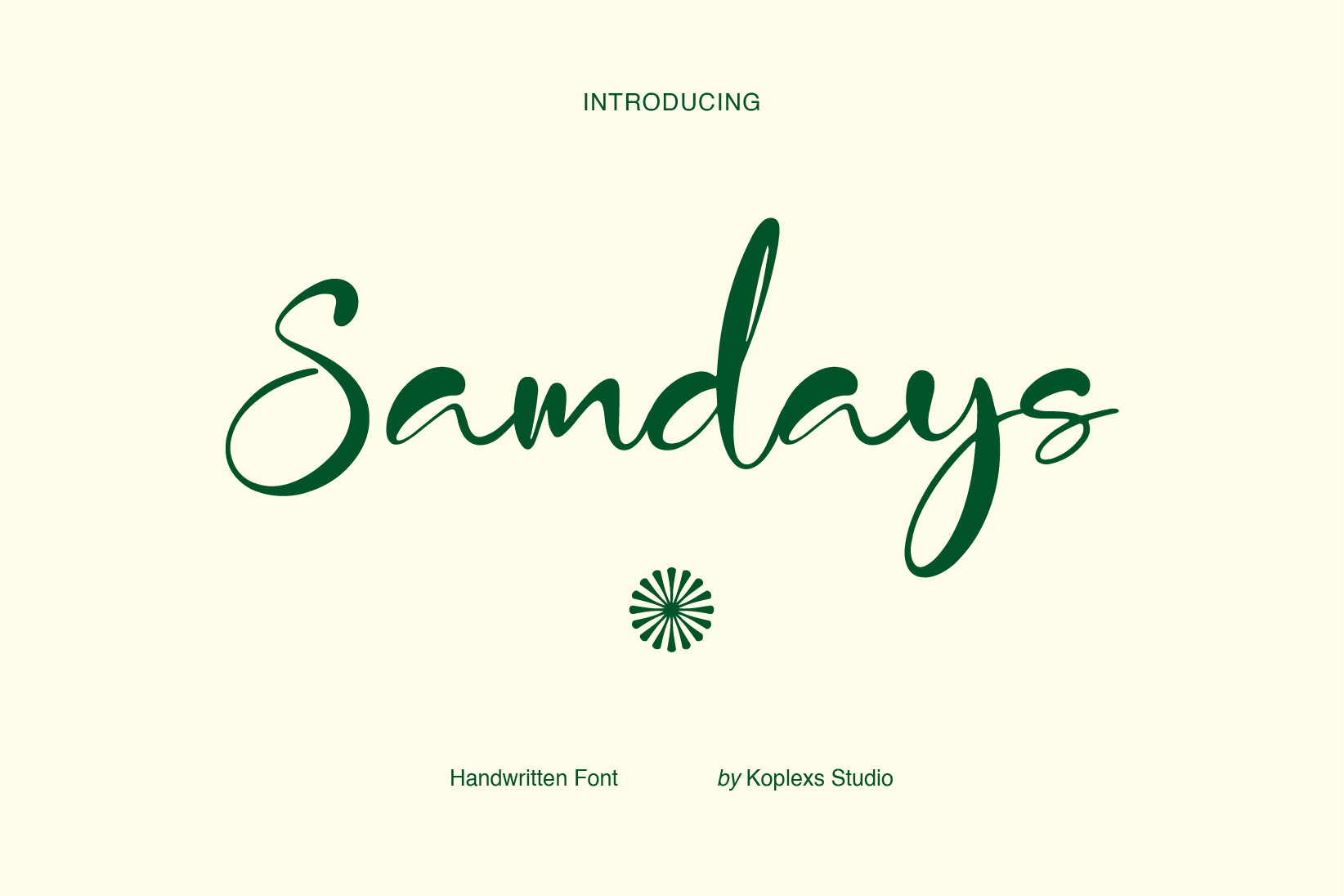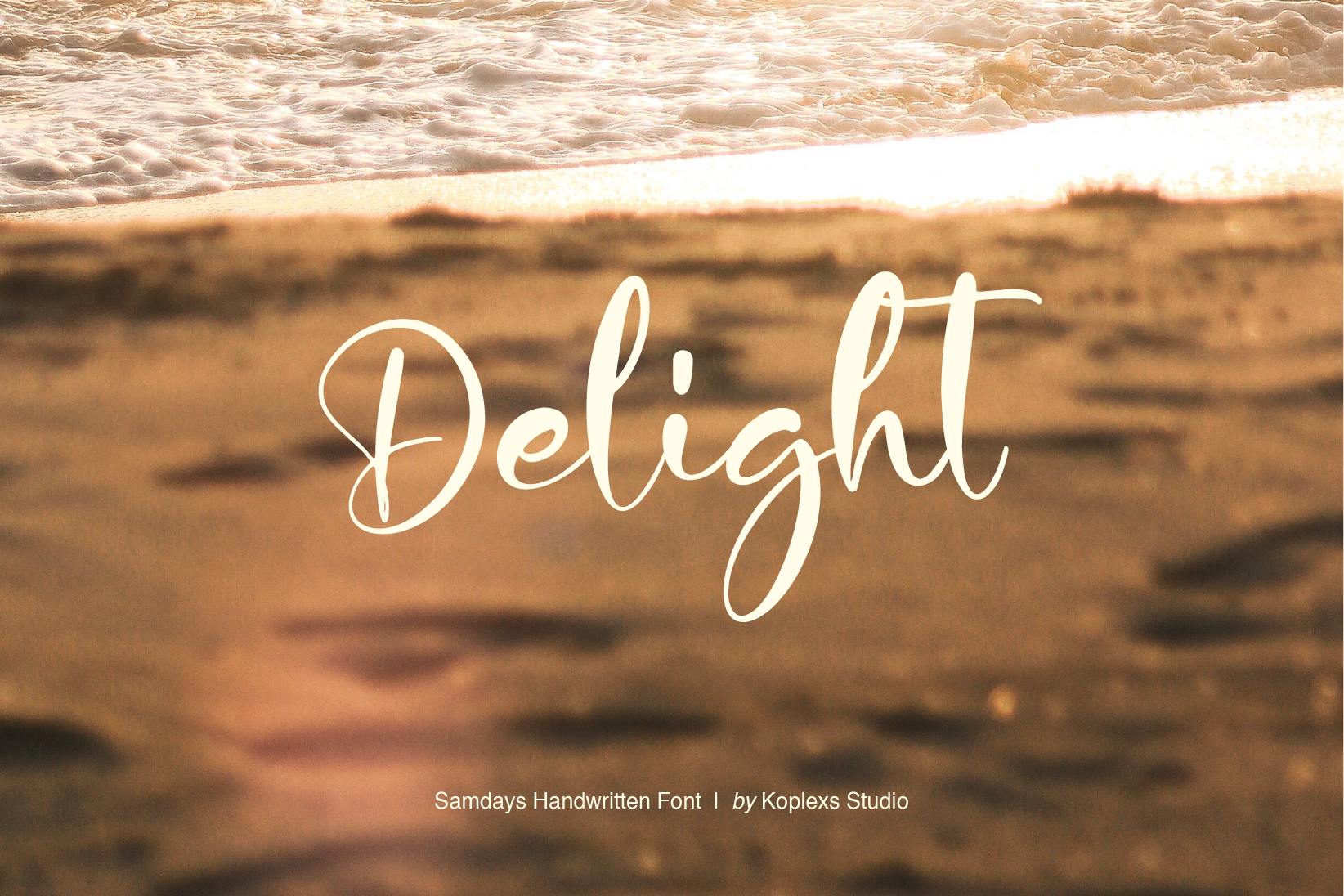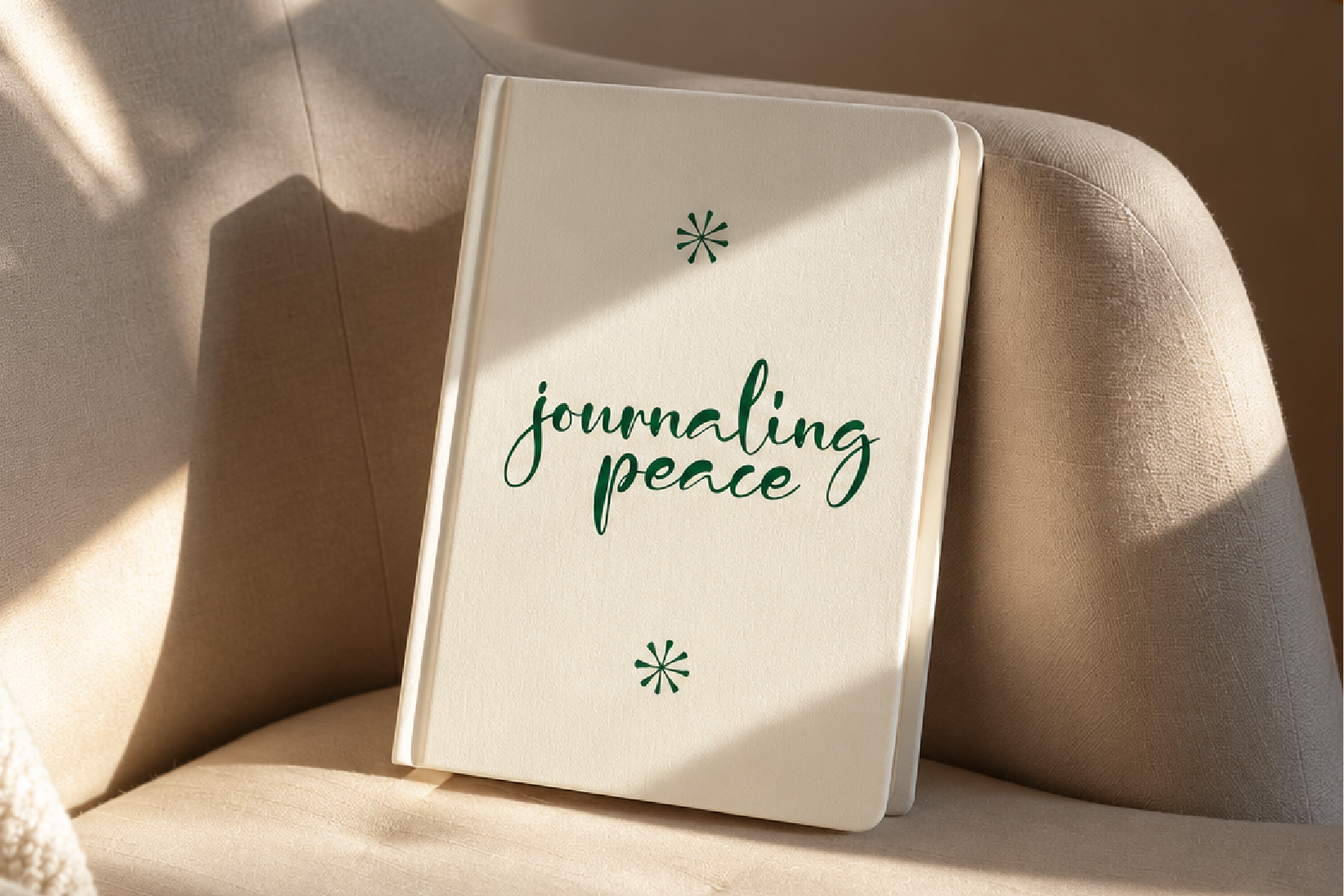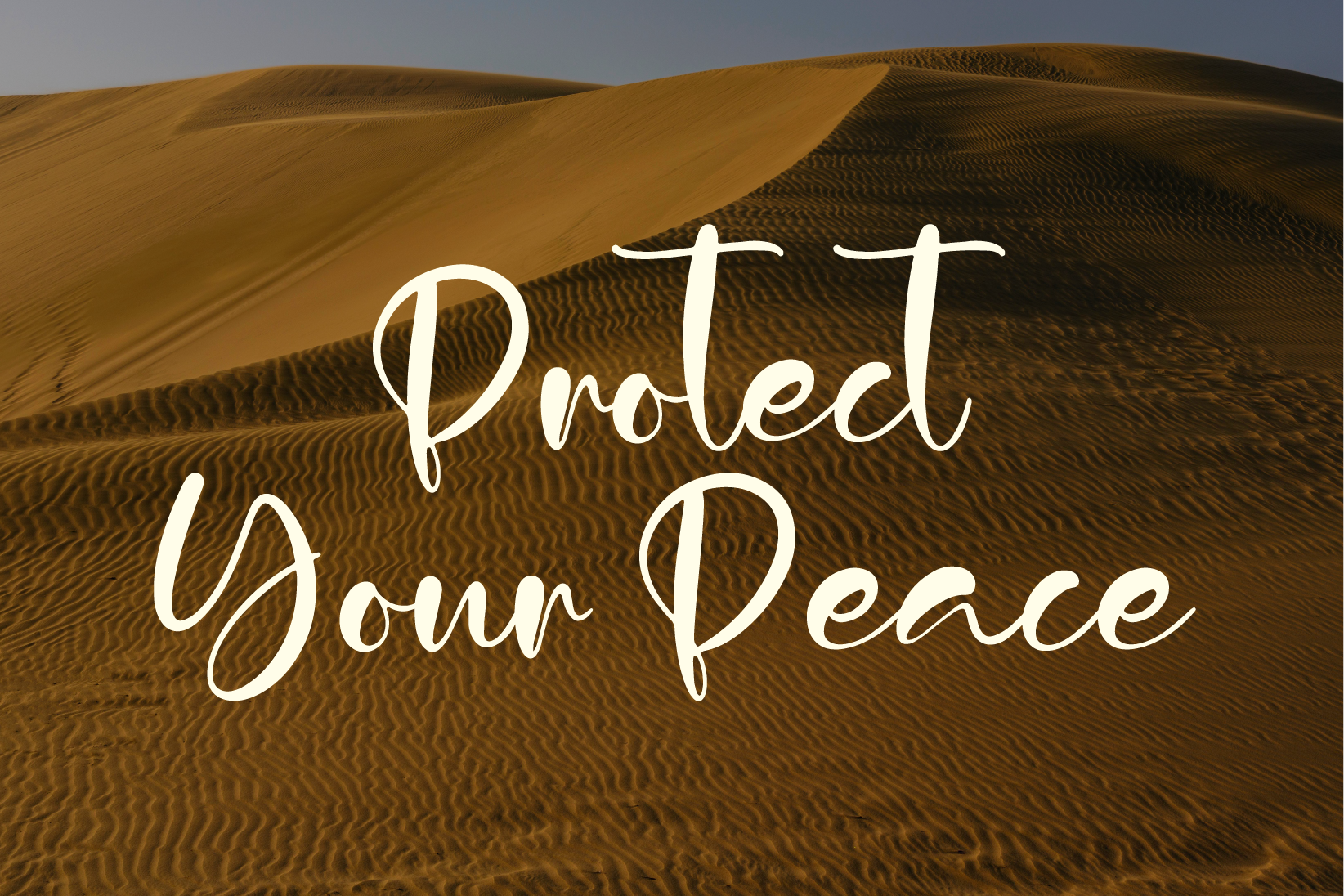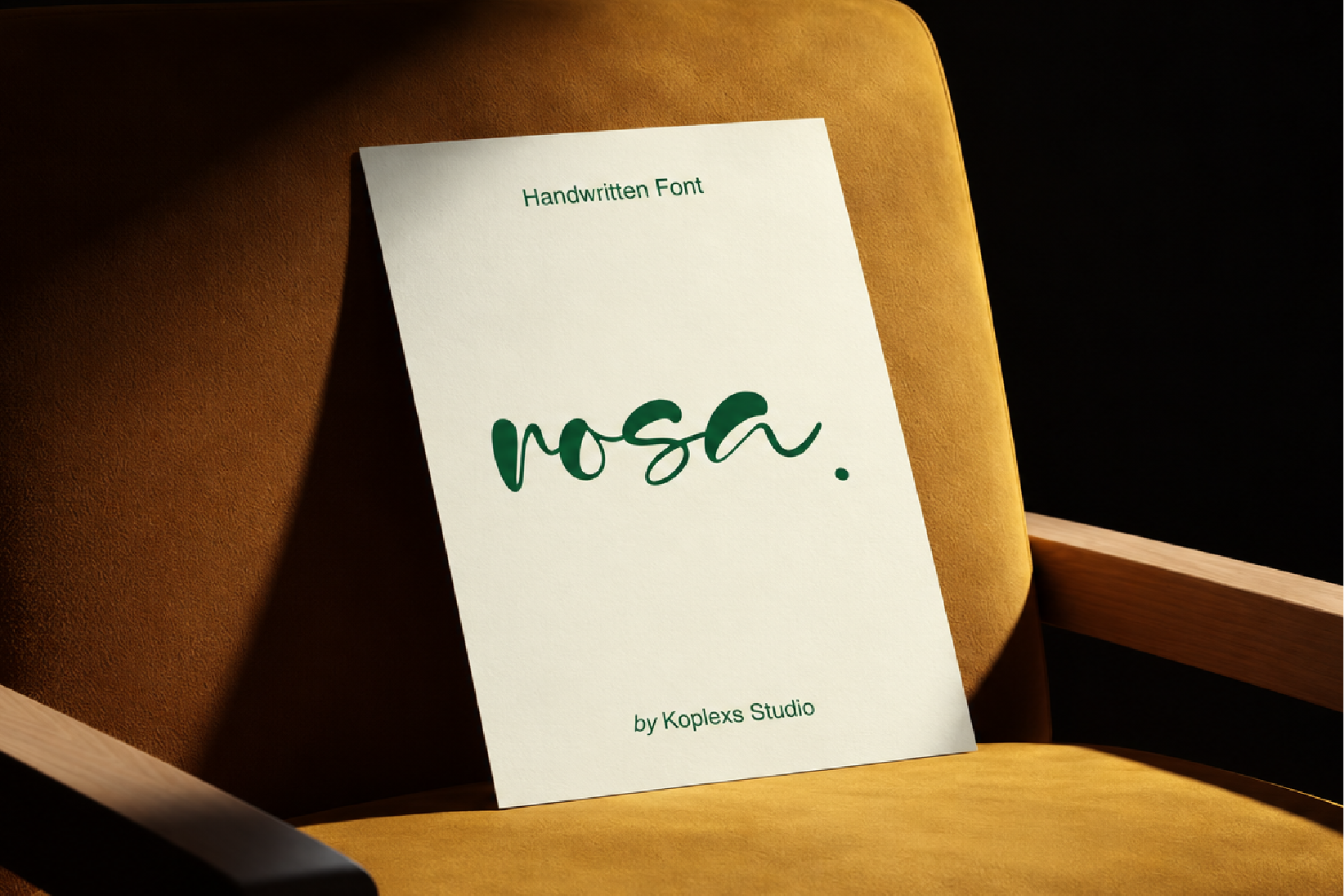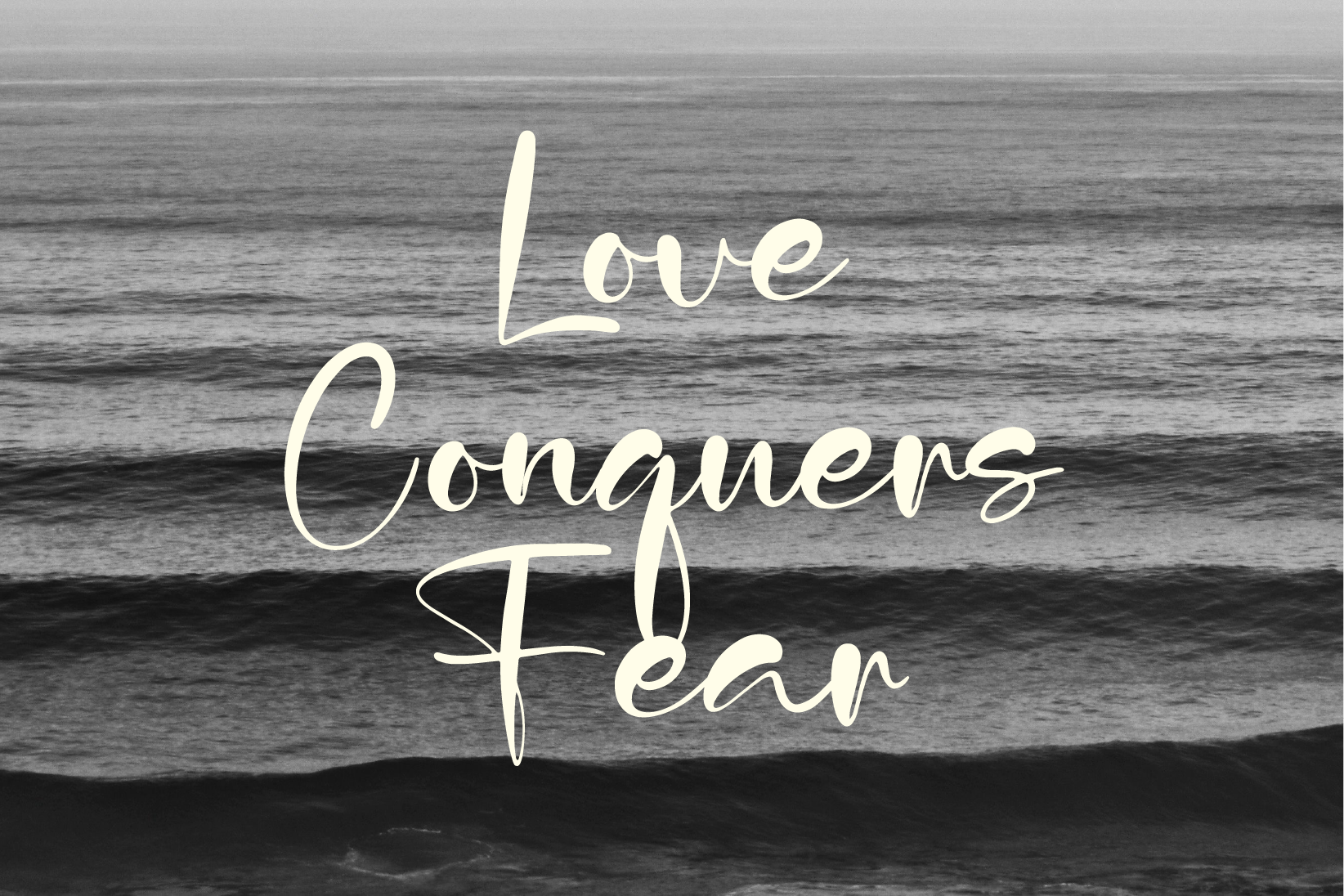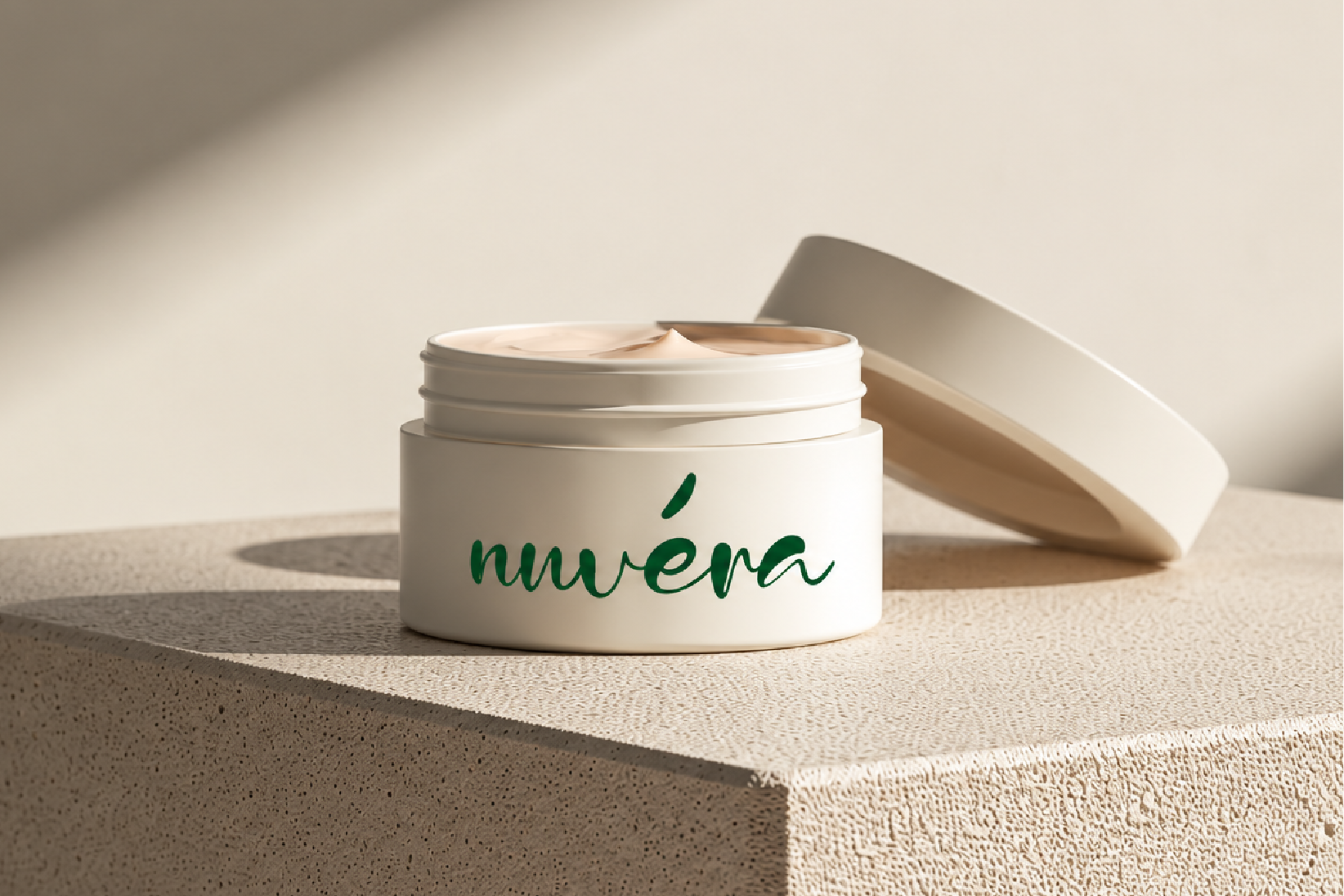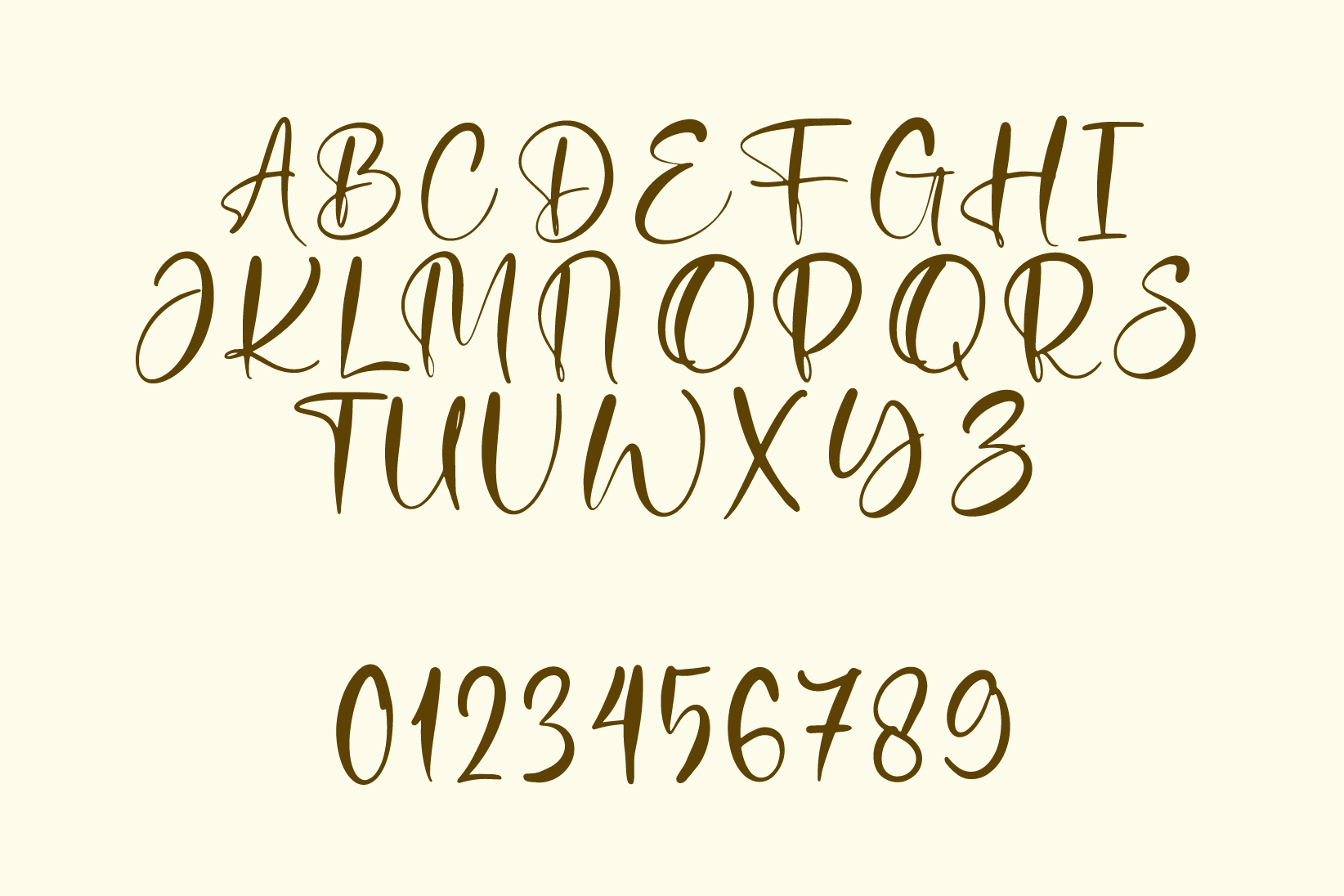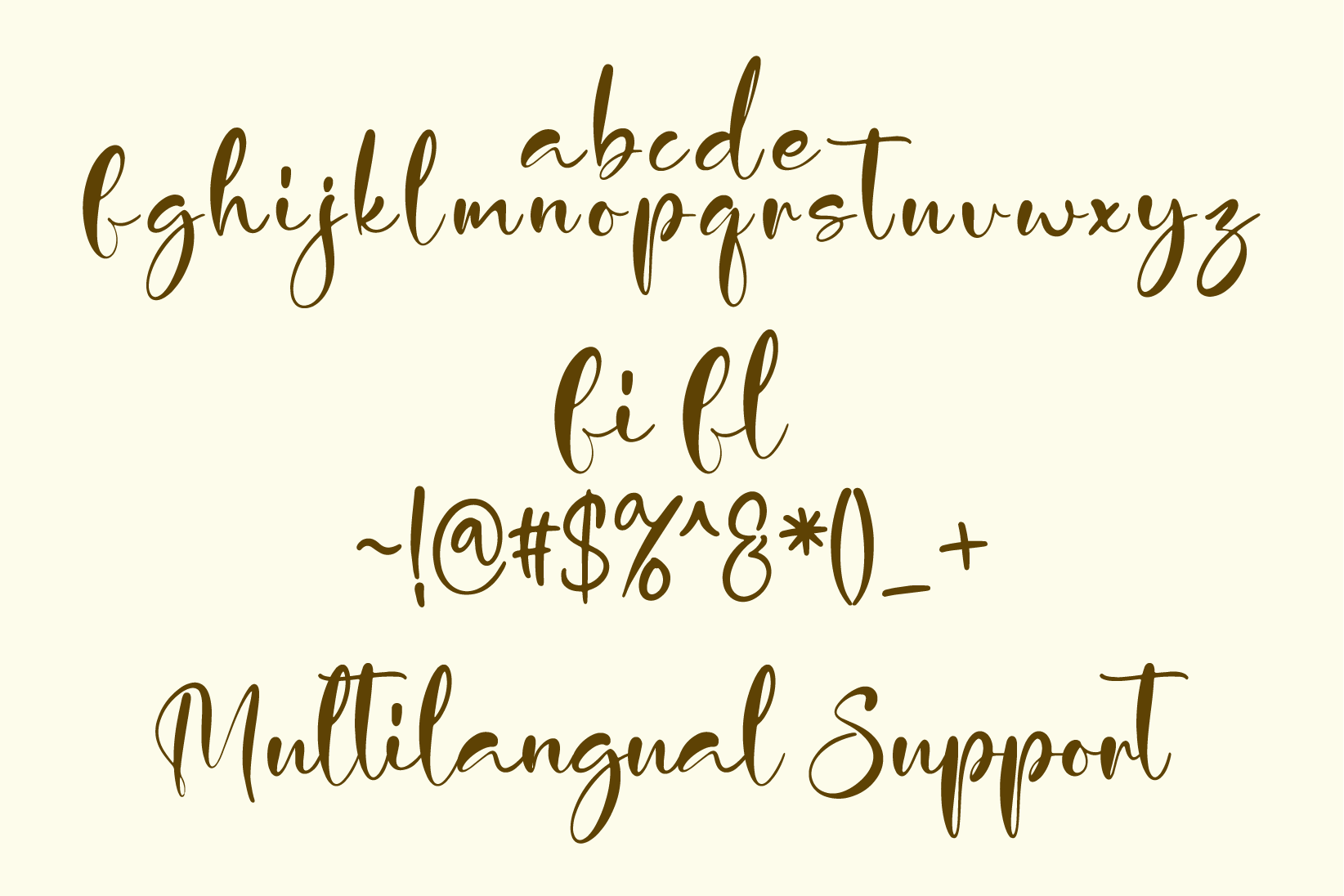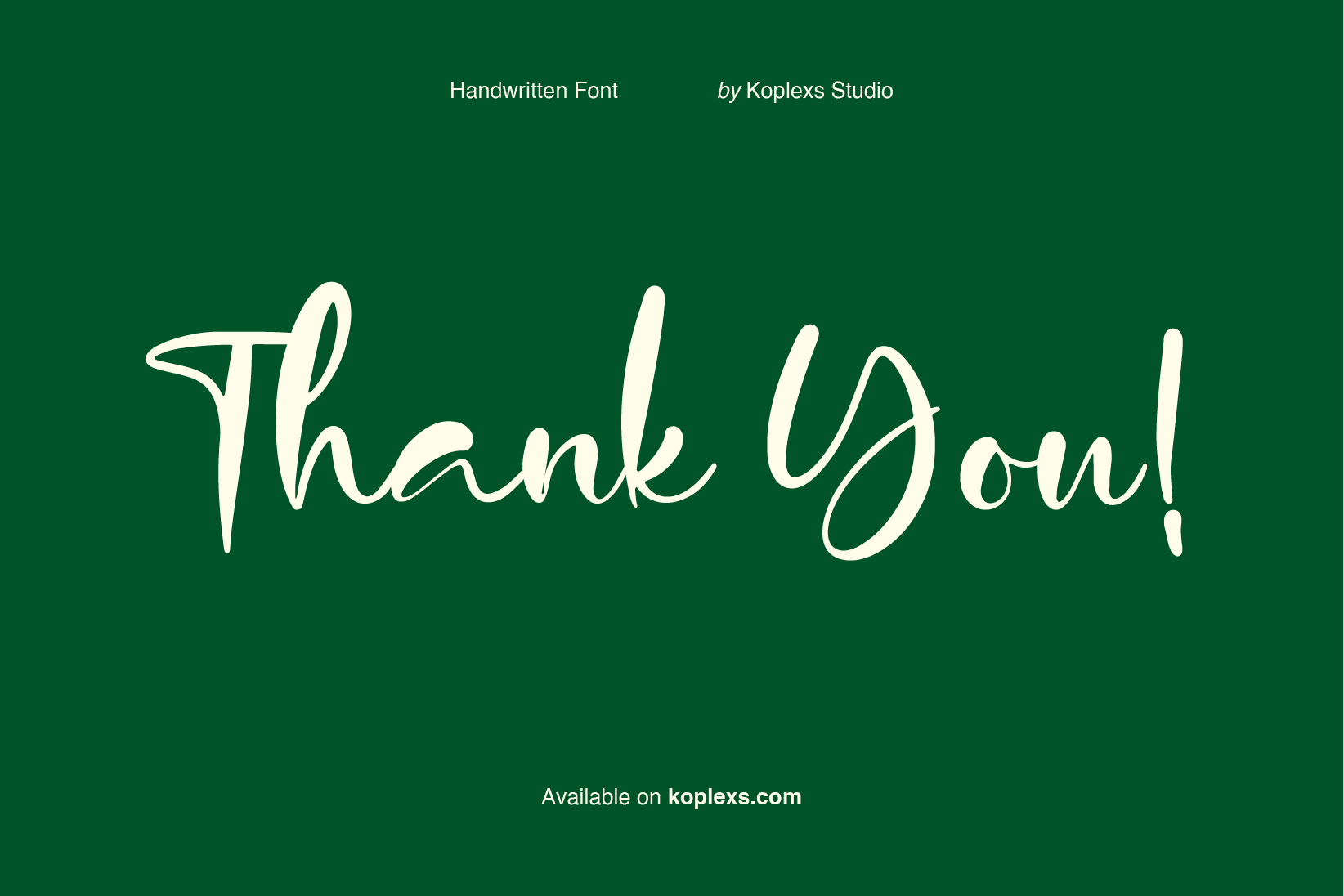
Samdays Font Handwritten Script for Logos and Stationery
Samdays Font is a handwritten font by Koplexs Studio with flowing connections, tall loops, and sweeping capitals. Its contrast between thick curves and fine joining strokes gives names and short phrases a warm, expressive look.
The relaxed rhythm brings a modern calligraphy feel to simple layouts. Try it on a skincare label, an invitation, or a journal cover where the lettering can take centre stage.
Samdays Font Features :
- Standard & Multilingual glyphs
- Alternates & Ligatures
- Fonts include multilingual support
Samdays Font Best Suited For :
- Beauty branding and skincare packaging
- Boutique logos and personal brand identities
- Wedding invitations and greeting cards
- Journal covers, planners, and stationery
- Social media quotes and photography overlays